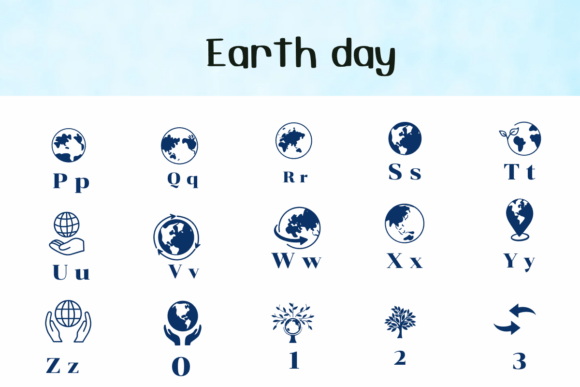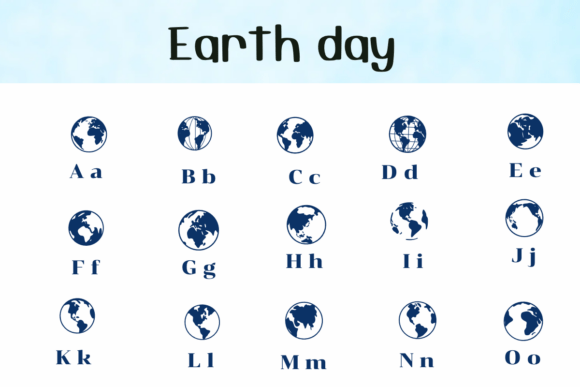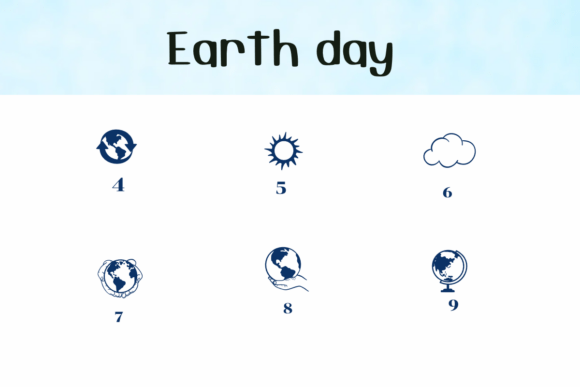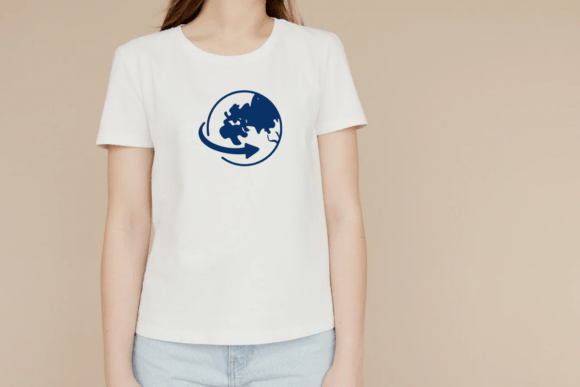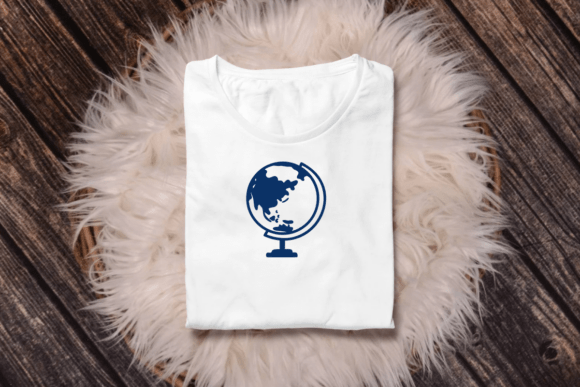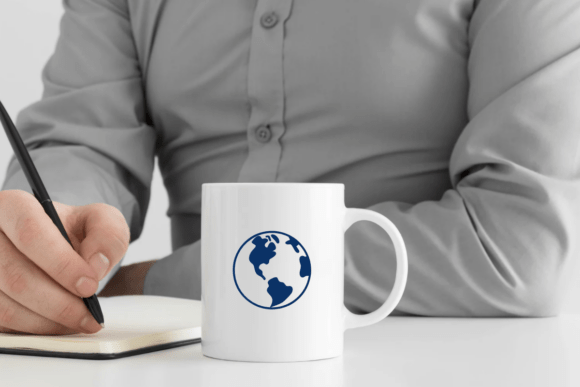
Introducing Earth Day Font: A Sustainable Design Essential
As we celebrate Earth Day, designers and crafters are on the lookout for creative ways to express their eco-friendly values. One exciting tool that’s making waves in the design community is the Earth Day Font, also known as Earth Day Dingbats. This decorative icon font is a treasure trove of eco-themed illustrations, perfect for adding a thoughtful and artistic touch to environmental campaigns, sustainability projects, educational materials, and Earth Day designs.
What is Earth Day Font?
Earth Day Font is a unique dingbat font that features a wide range of eco-friendly illustrations, including the globe, hands, and various nature elements. This font is designed to help designers and crafters create visually stunning and meaningful designs that promote sustainability and environmental awareness. With Earth Day Font, you can add a creative twist to your eco-conscious projects, making them more engaging and impactful.
Key Features of Earth Day Font
- Eco-themed illustrations: The font includes a diverse set of illustrations that showcase the beauty of nature, from the Earth itself to leaves, flowers, and animals.
- Decorative and artistic: Earth Day Font is designed to add a touch of elegance and sophistication to your designs, making them perfect for environmental campaigns, sustainability projects, and educational materials.
- Customizable: With Earth Day Font, you can experiment with different colors, sizes, and arrangements to create unique and eye-catching designs.
Ideas for Using Earth Day Font
Earth Day Font is incredibly versatile, and its uses are limited only by your imagination. Here are some ideas to get you started:
- Environmental campaigns: Use Earth Day Font to create eye-catching posters, social media graphics, and flyers that promote sustainability and eco-friendliness.
- Sustainability projects: Add a touch of elegance to your sustainability reports, brochures, and presentations with Earth Day Font’s beautiful illustrations.
- Educational materials: Create engaging and informative educational resources, such as worksheets, activity sheets, and presentations, that teach children and adults about the importance of environmental conservation.
- Earth Day designs: Celebrate Earth Day with stunning designs that showcase your commitment to sustainability and eco-friendliness.
Benefits of Using Earth Day Font
By incorporating Earth Day Font into your designs, you’ll enjoy a range of benefits, including:
- Increased engagement: Earth Day Font’s visually appealing illustrations will capture your audience’s attention and encourage them to engage with your message.
- Enhanced credibility: By showcasing your commitment to sustainability and eco-friendliness, you’ll build trust with your audience and establish your brand as a responsible and environmentally conscious entity.
- Creative flexibility: With Earth Day Font, you’ll have access to a wide range of illustrations that can be used in various design contexts, from print to digital.
Earth Day Font is a game-changer for designers and crafters who want to create eco-friendly designs that inspire and educate. With its wide range of eco-themed illustrations, decorative and artistic style, and ease of use, this dingbat font is perfect for environmental campaigns, sustainability projects, educational materials, and Earth Day designs. By incorporating Earth Day Font into your creative workflow, you’ll be able to create stunning and meaningful designs that promote sustainability and environmental awareness.
Get Ready to Make a Difference with Earth Day Font